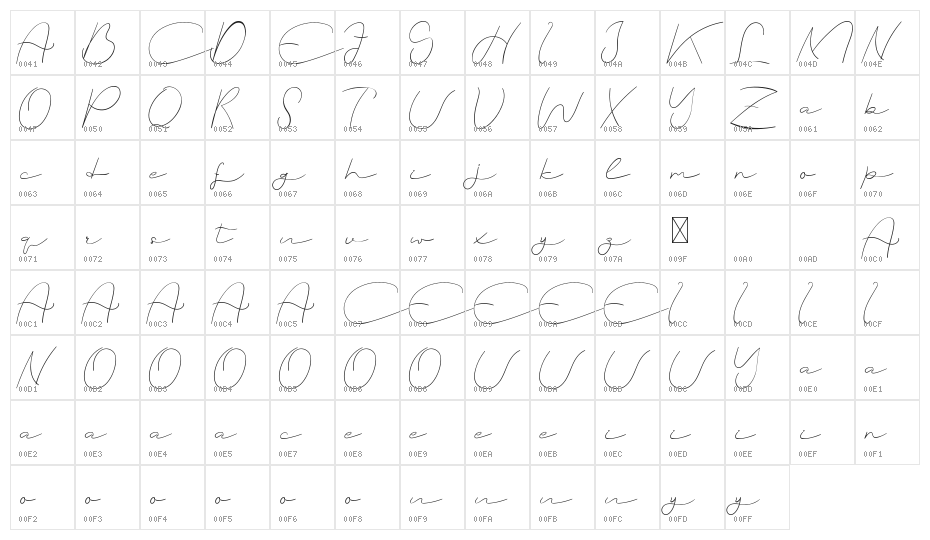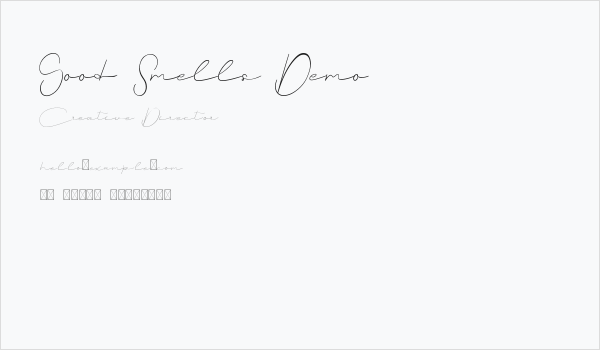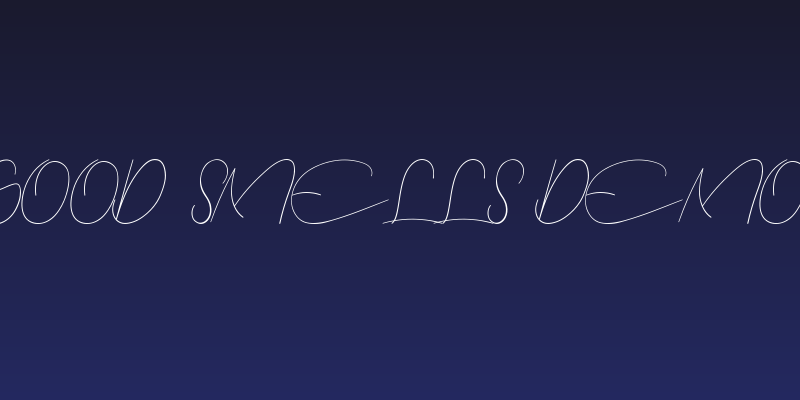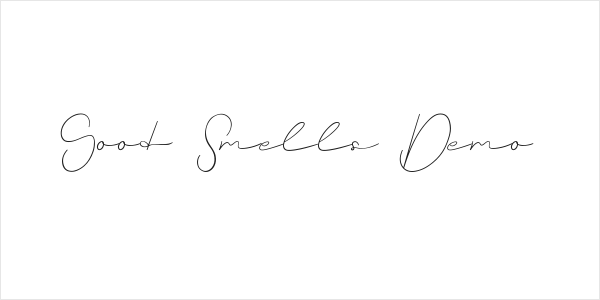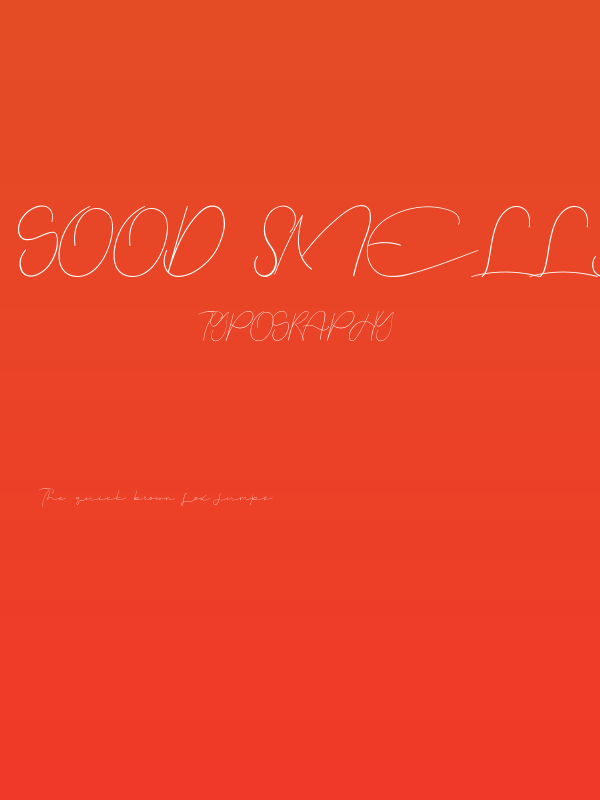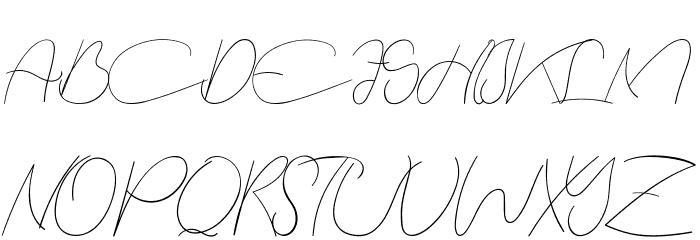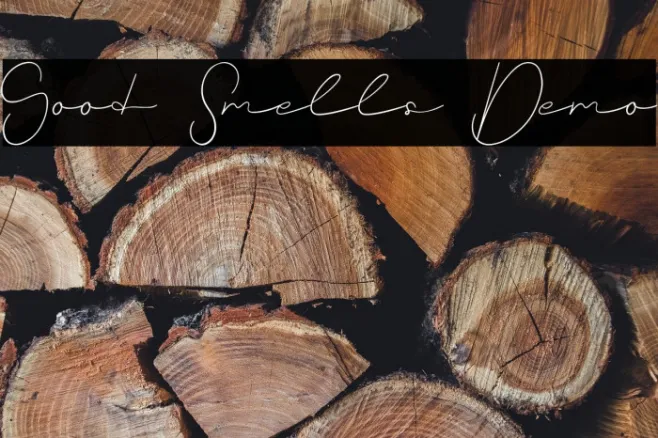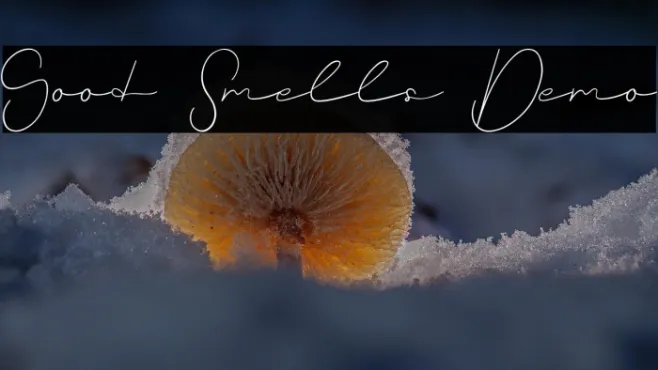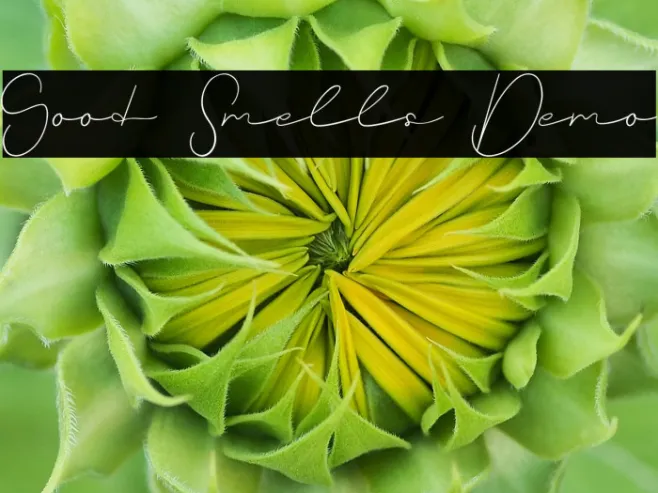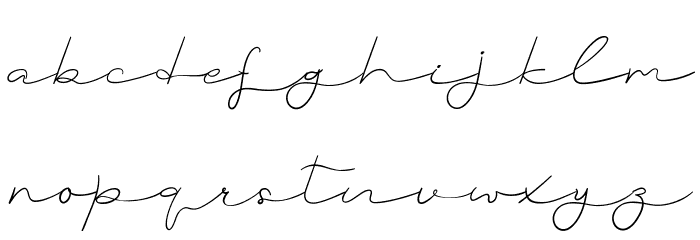
Good Smells Demo Font
Good Smells Demo Description
This font features a delicate and flowing script style, characterized by its elegant and continuous strokes that mimic the fluidity of handwriting. The letters are interconnected, creating a seamless and graceful appearance. The uppercase and lowercase letters maintain a consistent style, with subtle variations that add to the font's charm. The thin lines and gentle curves give it a sophisticated and airy feel, making it ideal for projects that require a touch of elegance and personal flair. The font's design is both modern and timeless, suitable for a variety of creative applications.
| Overall Style | Elegant, Modern |
| Proposed Projects | Ideal for wedding invitations, personal branding, greeting cards, and elegant packaging designs. |